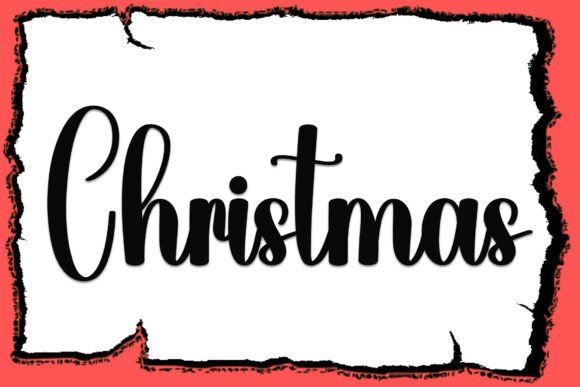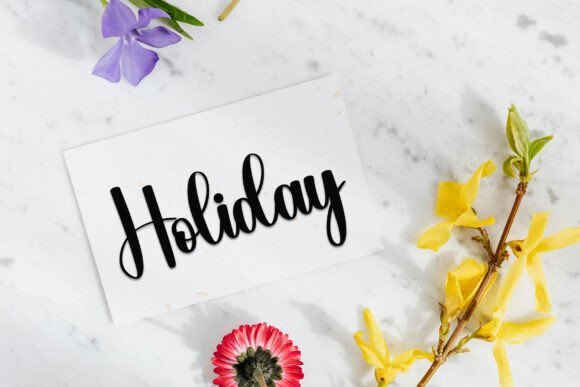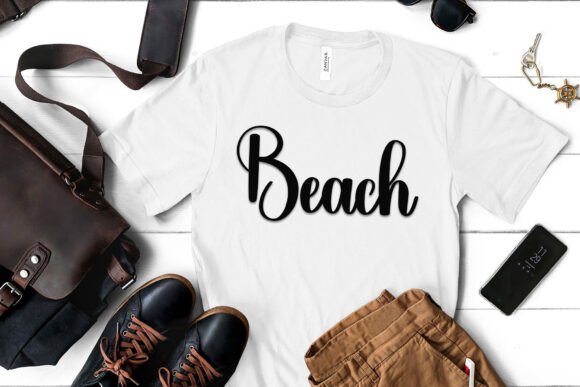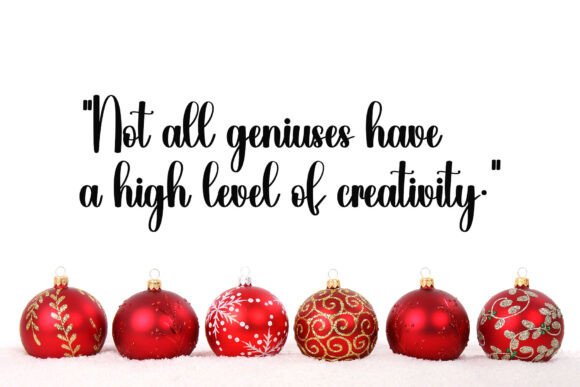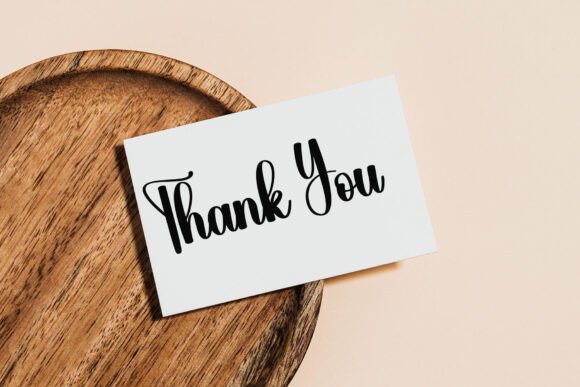
Introduction to Navidad Font
Navidad is a trendy handwritten font with a contemporary atmosphere and impeccable form, inspired by timeless classic calligraphy.
It will add elegance and class to any of your design projects .